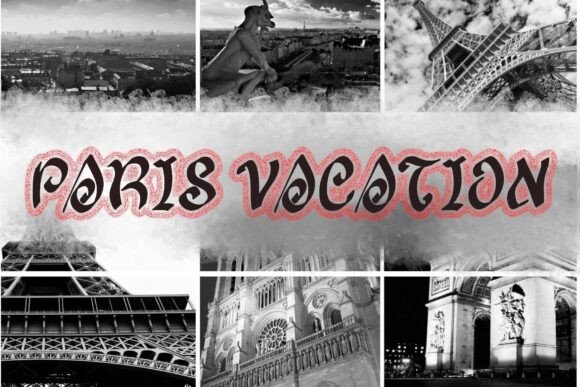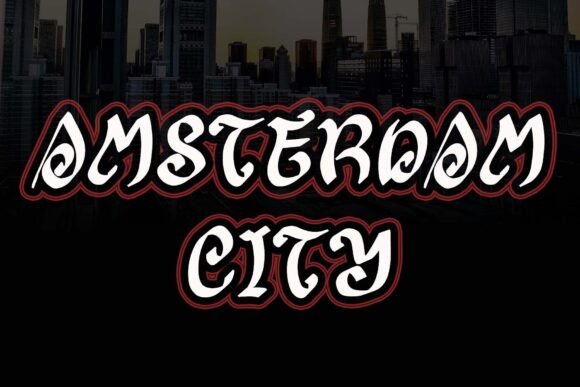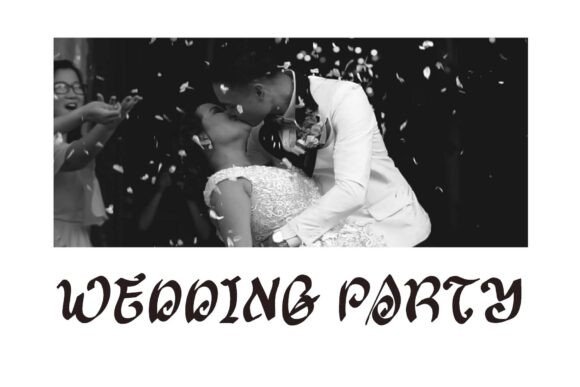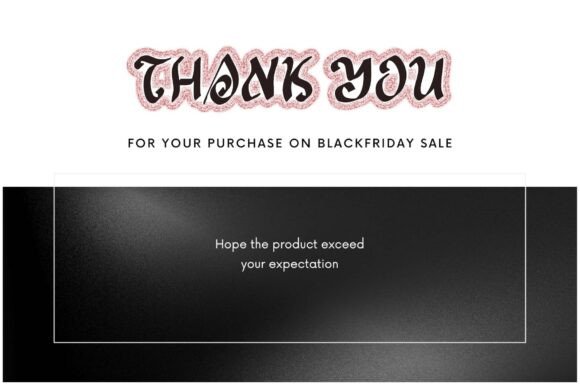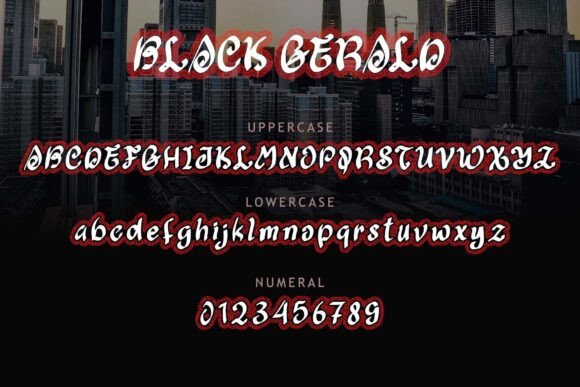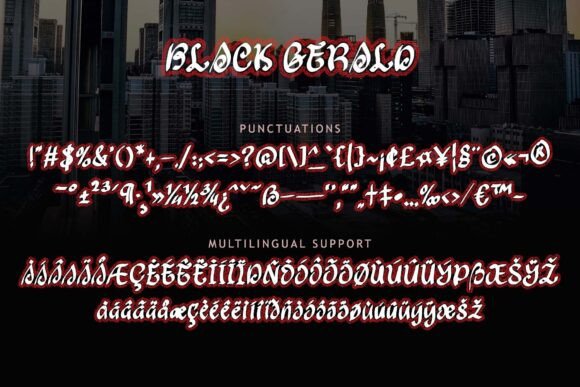
Introduction to Black Gerald Font
“Black Gerald” is an elegant blackletter font.
It comes with capital letters, lowercase letters, numbers, punctuation, and multilingual support It is perfect for use on Christmas, winter, posters, prints, banners, logos, branding, stickers, logos, business branding, prints, and more.
Key Features of Black Gerald Font